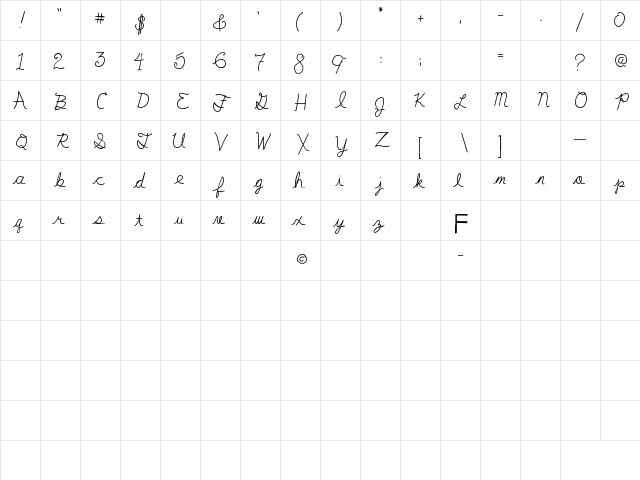
Poopants script Regular
| Designer | Kirk Shelton |
Design Context for Poopants script Typeface
Poopants script flows with the natural rhythm of handwritten lettering, making it ideal for designs that call for warmth and personal expression.
Font Pairing: Combine Poopants script with a simple geometric sans for maximum contrast — the tension between flowing curves and clean structure is a classic typographic pairing.
Pro Tip: Pair Poopants script with a clean sans-serif for supporting text. The contrast between fluid script and geometric structure creates an elegant typographic hierarchy.